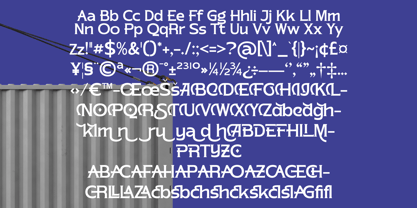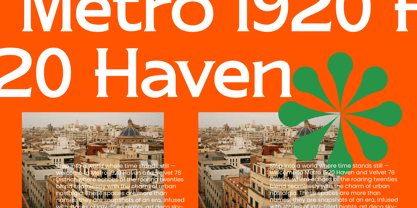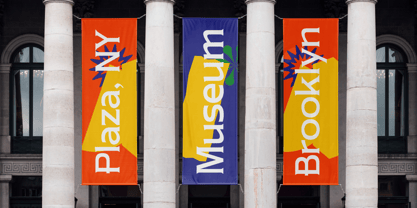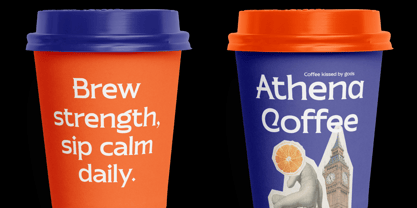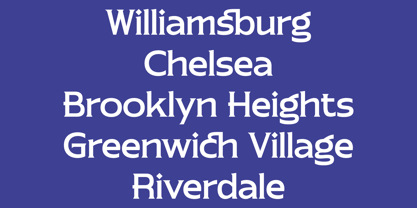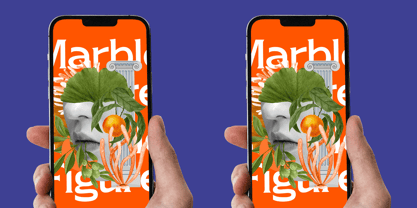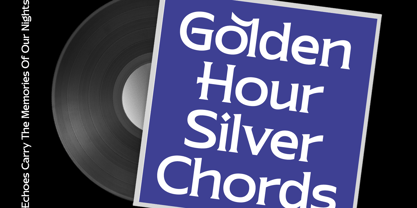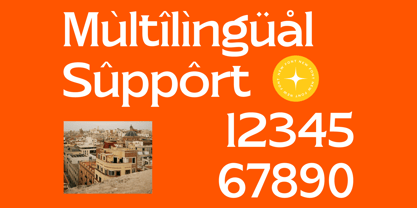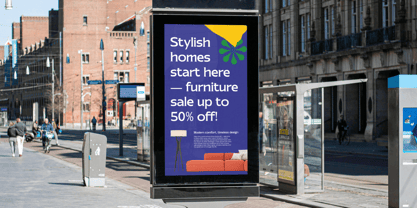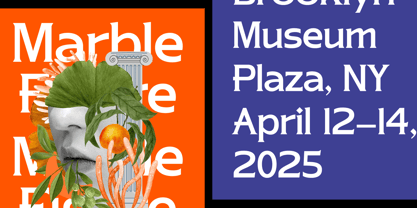
Manork Calme
The Manork Calme Font Family was designed by Heru Utama Putra and published by Timelesstype Studio. Manork Calme contains 2 styles and family package options. More about this family
Manork Calme - Modern Display Font , from Timelesstype, Suitable for any projects such as: logos, branding projects, homeware designs, product packaging, mugs, quotes, posters, shopping bags, t-shirts, book covers, name card, invitation cards, greeting cards, label, photography, watermark, special events, and all your other luxury and beautiful projects that need a Luxury Serif taste.